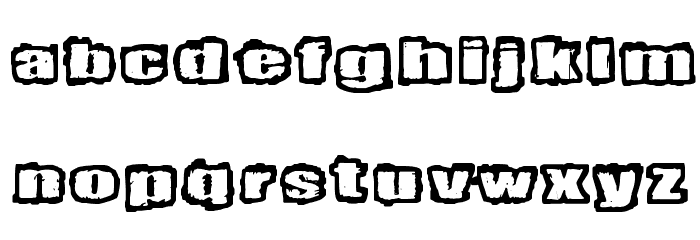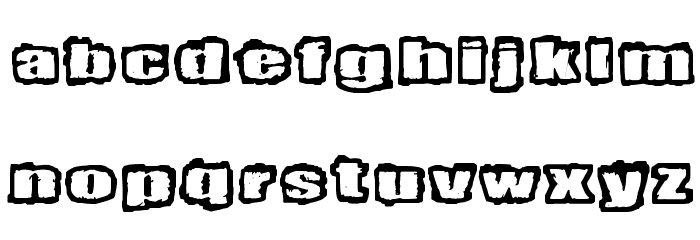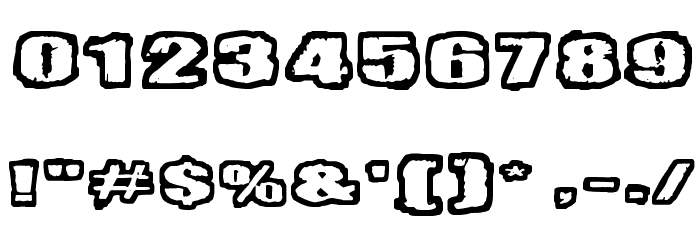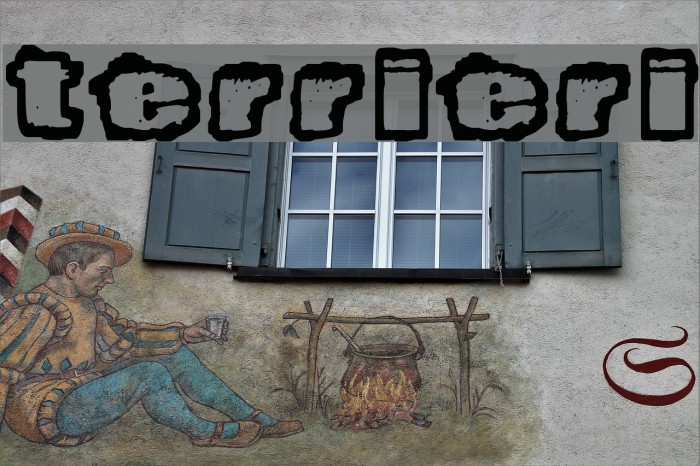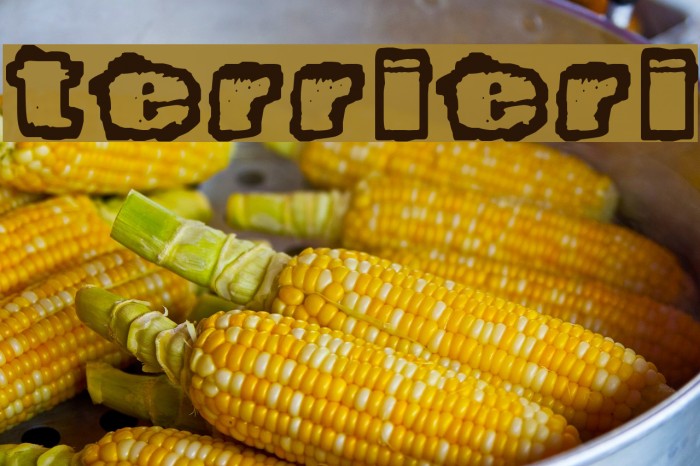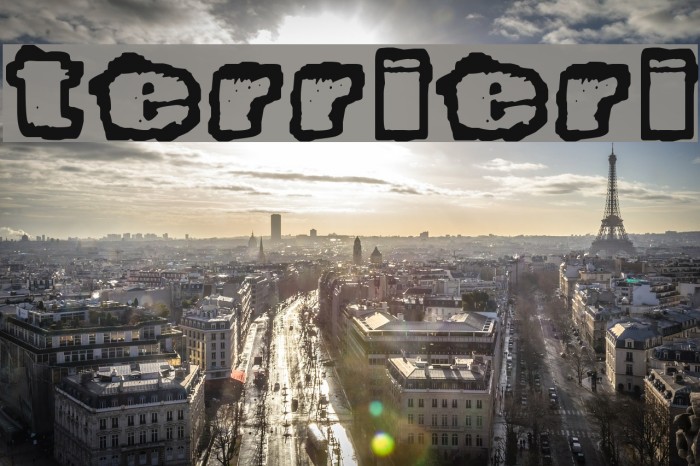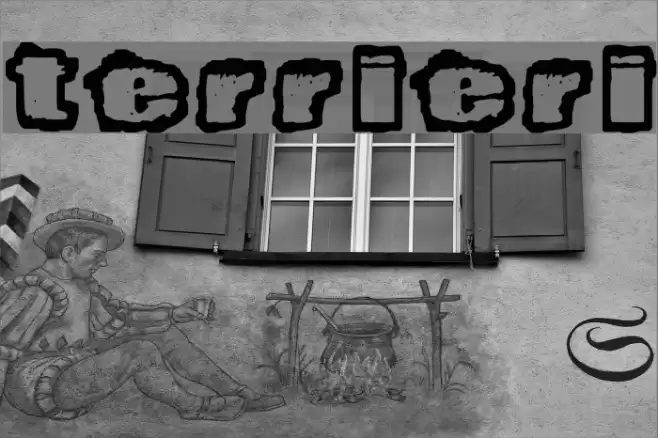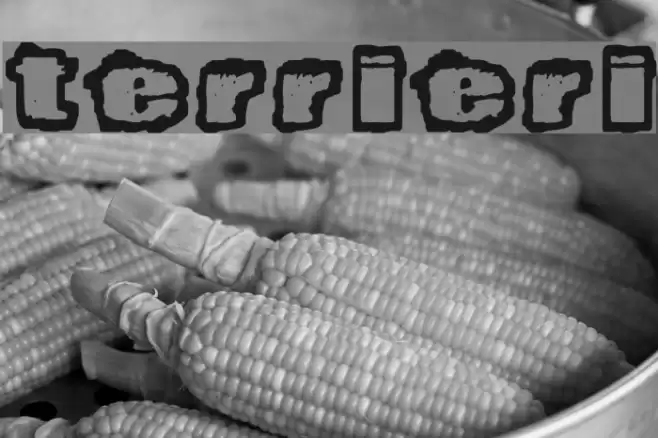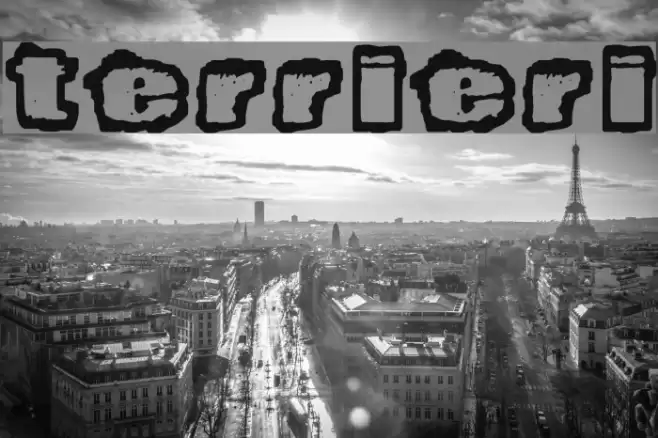
Terrieri Font
This font features a bold and playful design with a rough, textured outline that gives it a hand-drawn, graffiti-like appearance. The characters are uppercase and lowercase letters, numbers, and a variety of special symbols. Each character has a distinct, rugged edge, adding to the overall informal and artistic style. The font's unique look makes it stand out, making it ideal for creative projects that require a touch of whimsy and boldness.
A bold, textured font with a playful, graffiti-like style.
- Proposed Projects: Perfect for posters, album covers, street art designs, and creative branding projects.